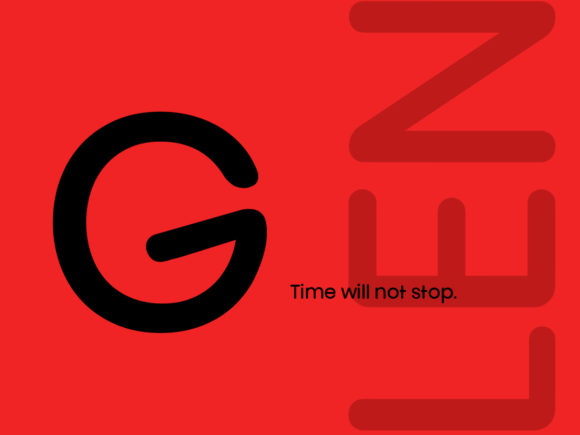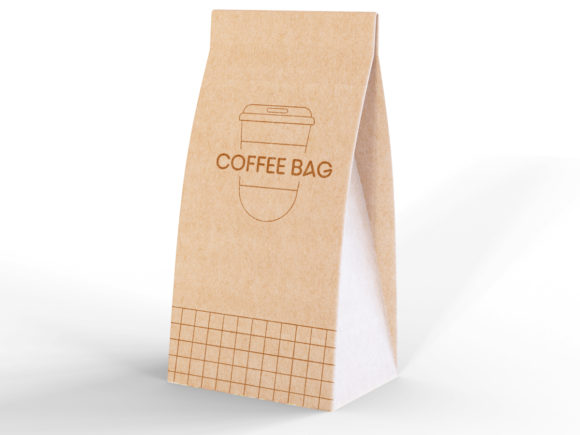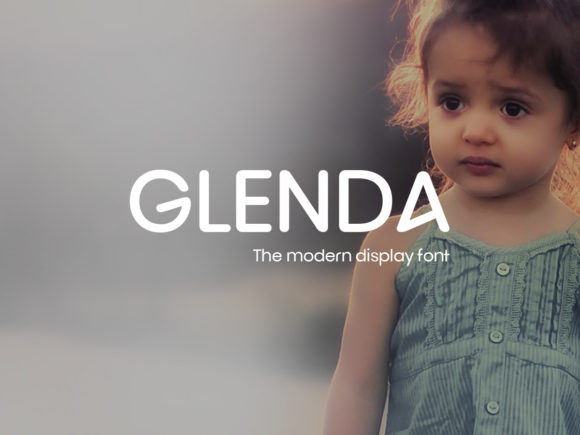
Introducing Glenda Font: The Ultimate Sans Serif for Creative Projects
Are you tired of using the same old fonts for your design projects? Look no further than Glenda Font, a minimal and neat sans serif font that’s perfect for adding a touch of modernity to your creative ideas. With its clean lines and simple design, Glenda is an incredibly versatile font that can be matched to a wide range of projects, making it a must-have for designers and crafters alike.
What Makes Glenda Font So Special?
Glenda Font is a sans serif font, which means it doesn’t have the small lines or flourishes that are characteristic of serif fonts. This makes it a great choice for projects where you want a clean and modern look. The font is also highly legible, making it perfect for use in body text, headings, and titles. Whether you’re working on a website, a brochure, or a social media graphic, Glenda Font is sure to make your text stand out.
Key Features of Glenda Font
- Minimal and neat design: Glenda Font has a simple and clean design that’s perfect for modern projects.
- Highly legible: The font is easy to read, even at small sizes.
- Versatile: Glenda Font can be used for a wide range of projects, from websites and brochures to social media graphics and more.
- Easy to pair with other fonts: Glenda Font pairs well with a variety of other fonts, making it easy to create a cohesive look for your project.
How to Use Glenda Font in Your Projects
Glenda Font is incredibly easy to use, and can be incorporated into your projects in a variety of ways. Here are a few ideas to get you started:
- Use it as a heading font: Glenda Font is perfect for use in headings and titles, where its clean lines and simple design can really make your text stand out.
- Pair it with other fonts: Glenda Font pairs well with a variety of other fonts, making it easy to create a cohesive look for your project.
- Use it for body text: Glenda Font is highly legible, making it a great choice for use in body text.
Why Designers and Crafters Love Glenda Font
Glenda Font has quickly become a favorite among designers and crafters, and for good reason. Here are a few reasons why:
- It’s versatile: Glenda Font can be used for a wide range of projects, making it a great addition to any designer’s toolkit.
- It’s modern and clean: Glenda Font has a modern and clean design that’s perfect for projects where you want a fresh look.
- It’s easy to use: Glenda Font is incredibly easy to use, and can be incorporated into your projects in a variety of ways.
If you’re looking for a font that’s modern, clean, and versatile, look no further than Glenda Font. With its minimal and neat design, Glenda Font is perfect for adding a touch of sophistication to your design projects. Whether you’re a designer, crafter, or just someone who loves to create, Glenda Font is sure to become a favorite in your toolkit. So why wait? Download Glenda Font today and see how it can make your projects stand out!